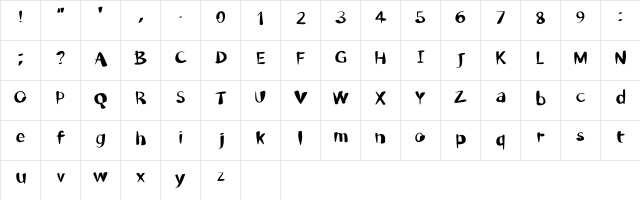
Michaellharper Regular
Design Context for Michaellharper Typeface
Michaellharper is a composed and adaptable typeface that performs quietly and consistently across a wide range of design contexts.